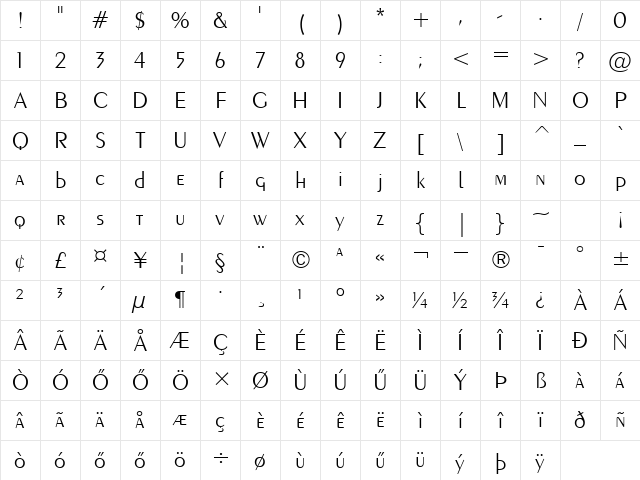
H_Exotic 350 Lt BT Regular
Design Context for H_Exotic 350 Lt BT
H_Exotic 350 Lt BT is a composed and adaptable typeface that performs quietly and consistently across a wide range of design contexts. Its slender proportions lend an understated elegance to any composition.
Pro Tip: Use H_Exotic 350 Lt BT in both headline and body roles to test its range before committing to a single application.